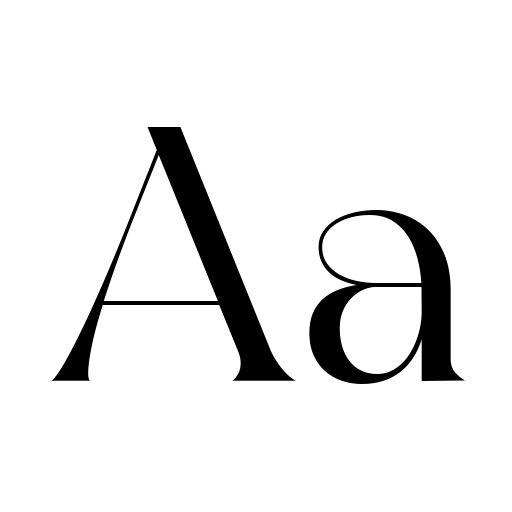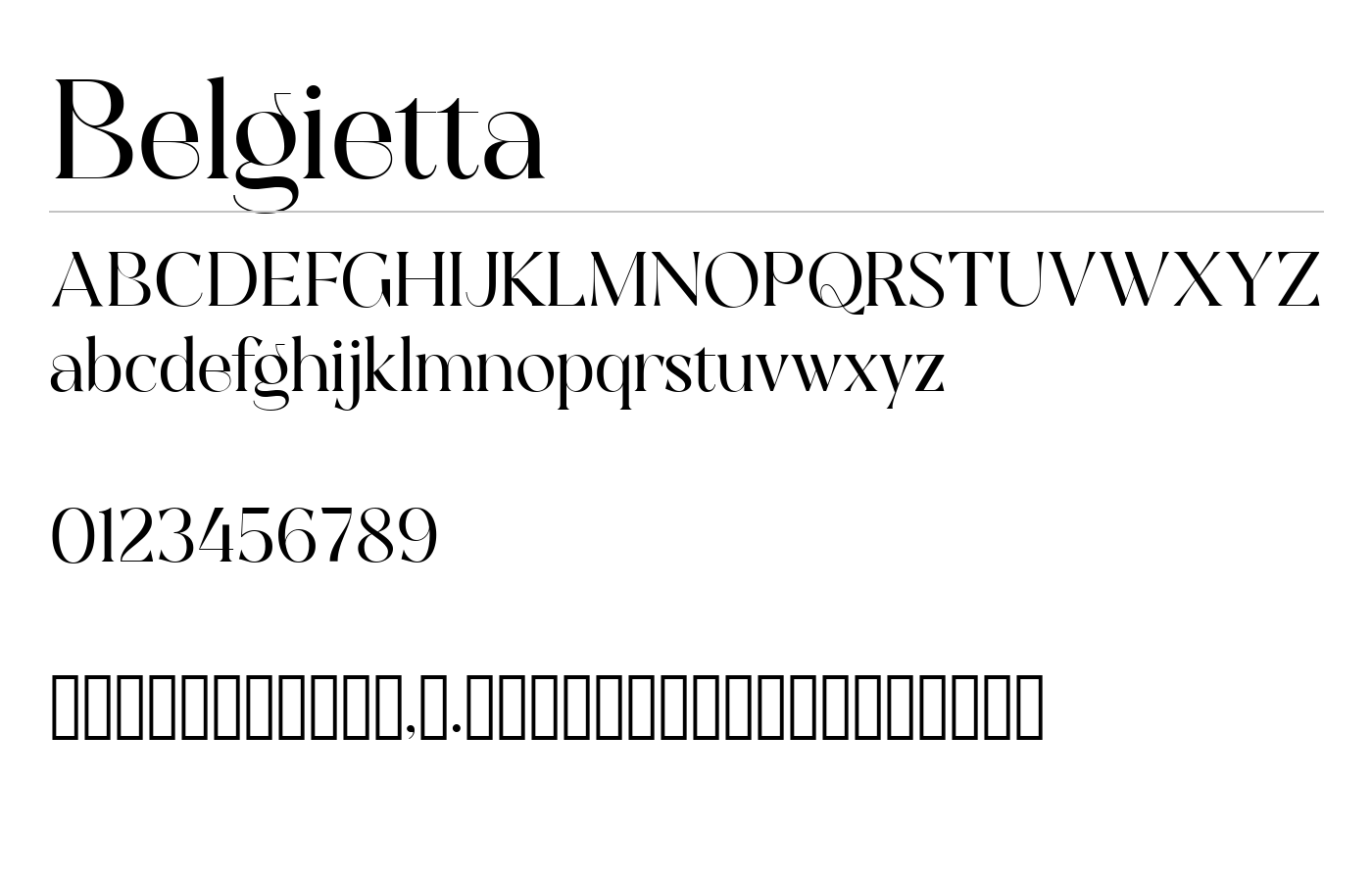
Belgietta is an elegant serif font with a refined Didone style, characterized by high contrast between thick and thin strokes and delicate, bracketed serifs. Its tall, graceful letterforms and subtle flourishes give it a sophisticated and luxurious feel, making it ideal for upscale branding, editorial headlines, and fashion packaging. This font works beautifully where a sense of classic elegance and modern flair is desired.
About Belgietta Font